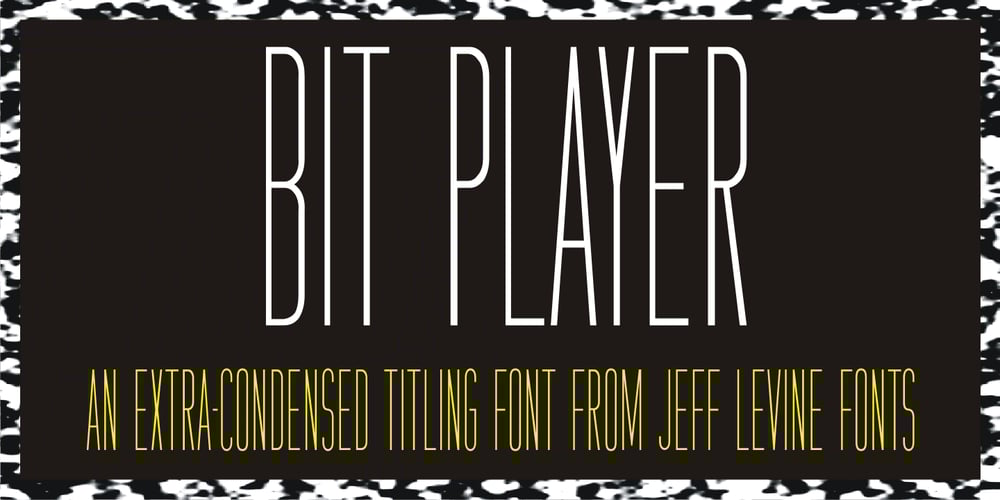
Bit Player JNL Font Family was designed by Jeff Levine and published by Jeff Levine. Bit Player JNL contains 2 styles and family package options. Bit Player JNL is the extra-condensed companion font to Cast and Crew JNL, and features an additional oblique version. Useful wherever a large block of copy text needs to fit into a constrained space, Bit Player JNL can be applied to movie title credits, disclaimers, warranty information, end user license agreements and similar projects.